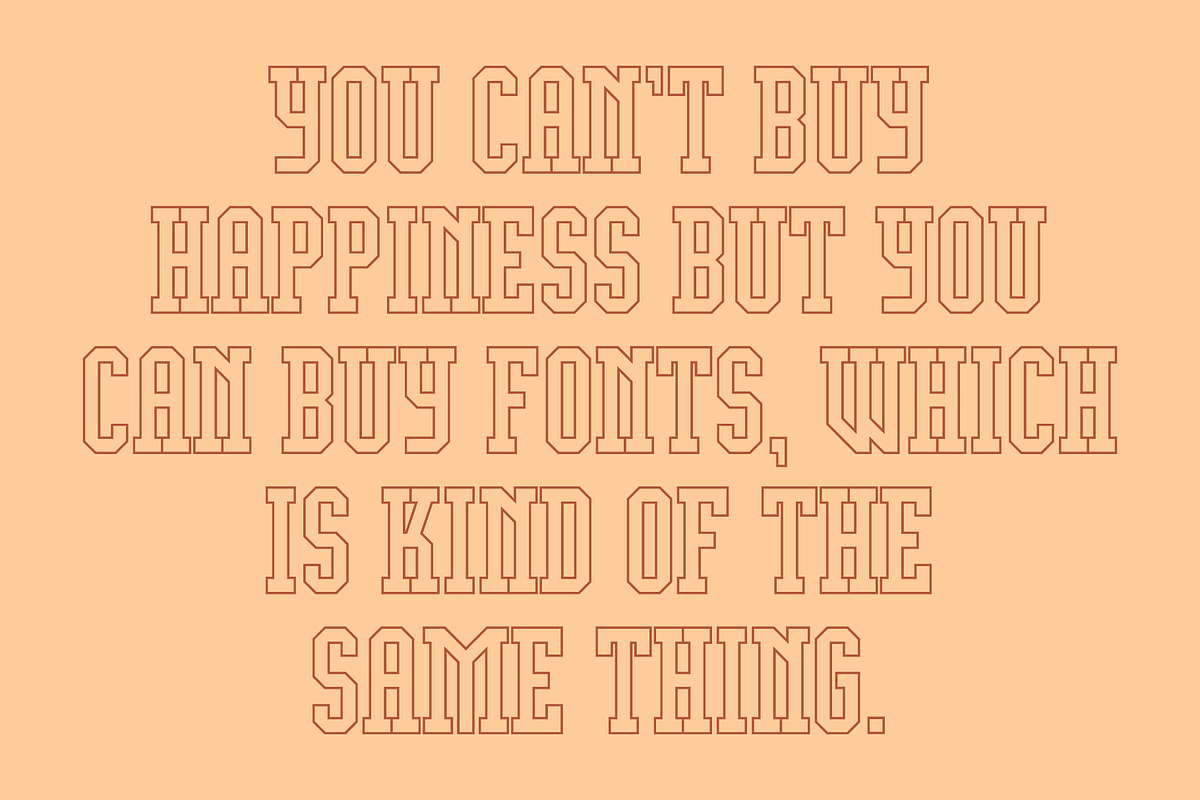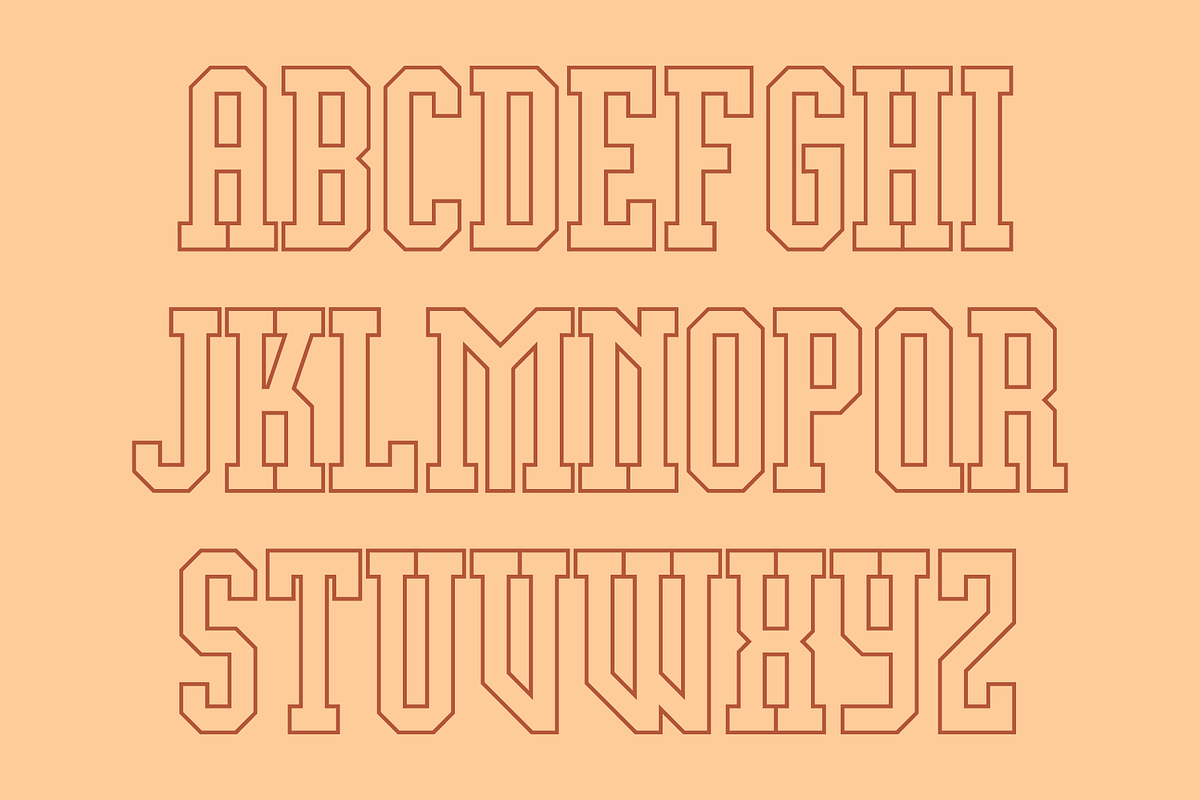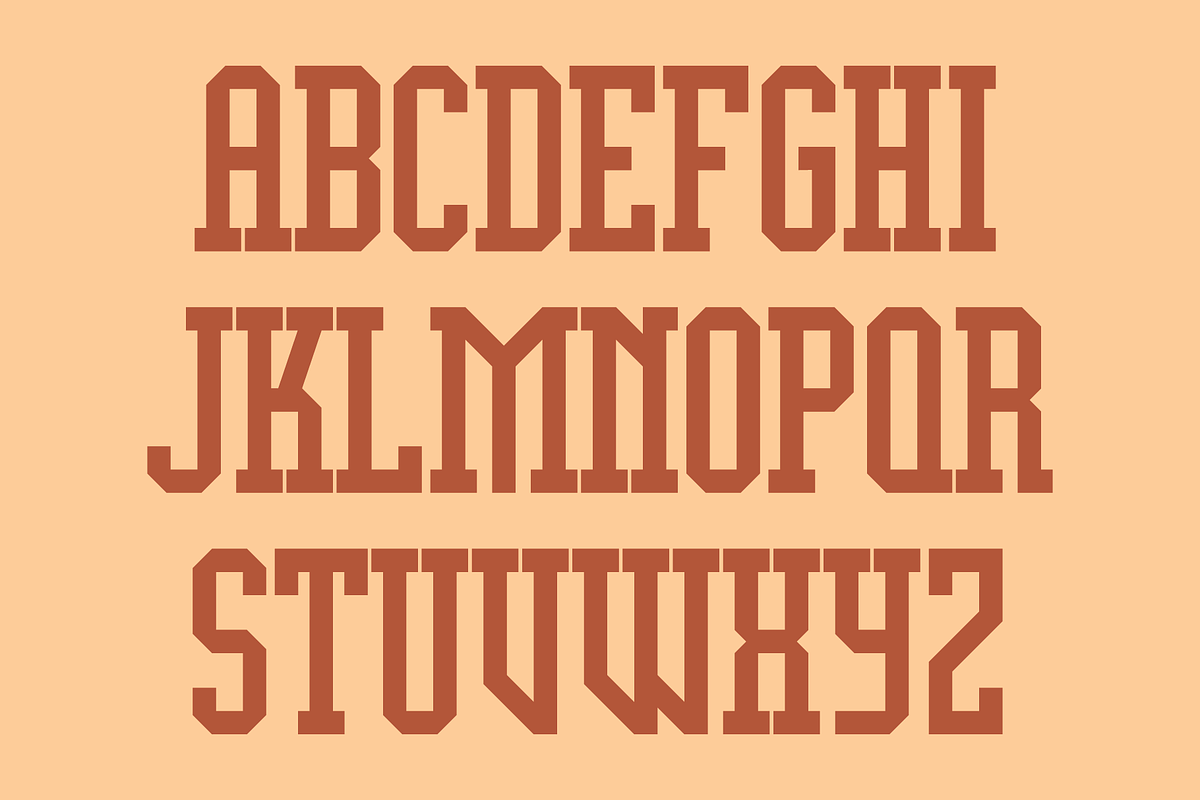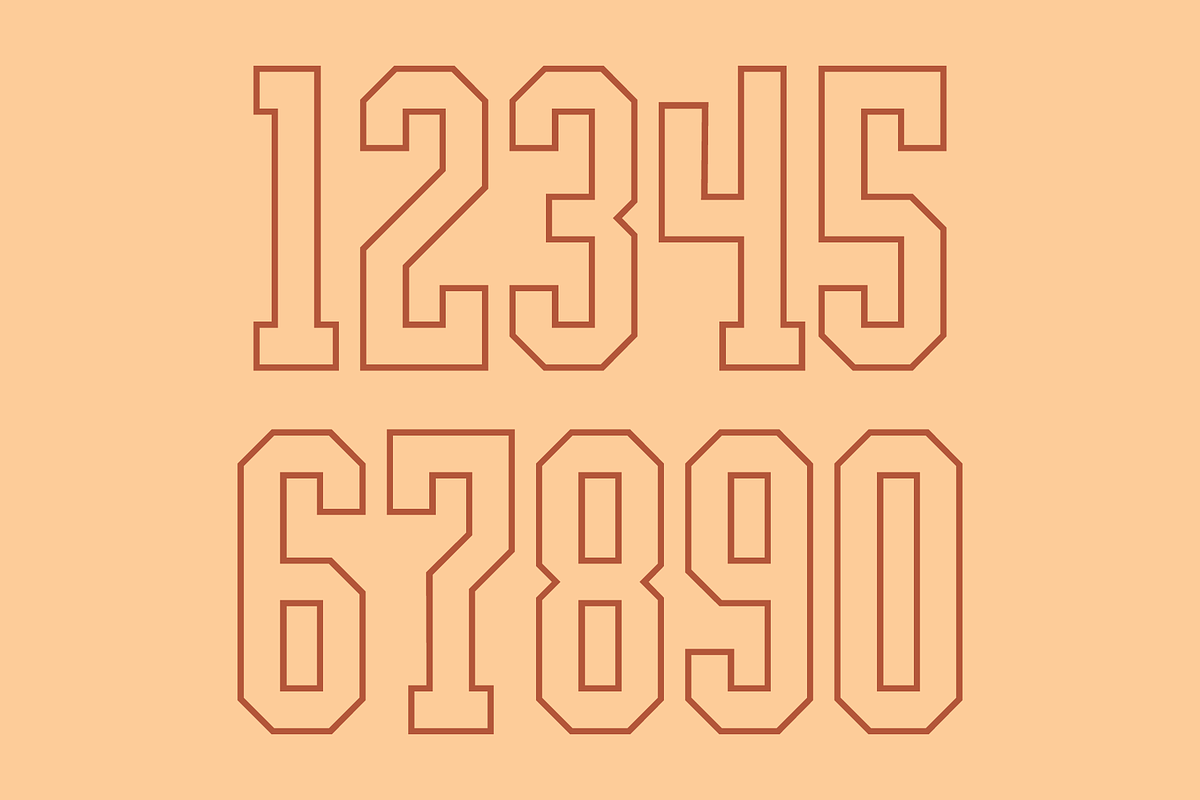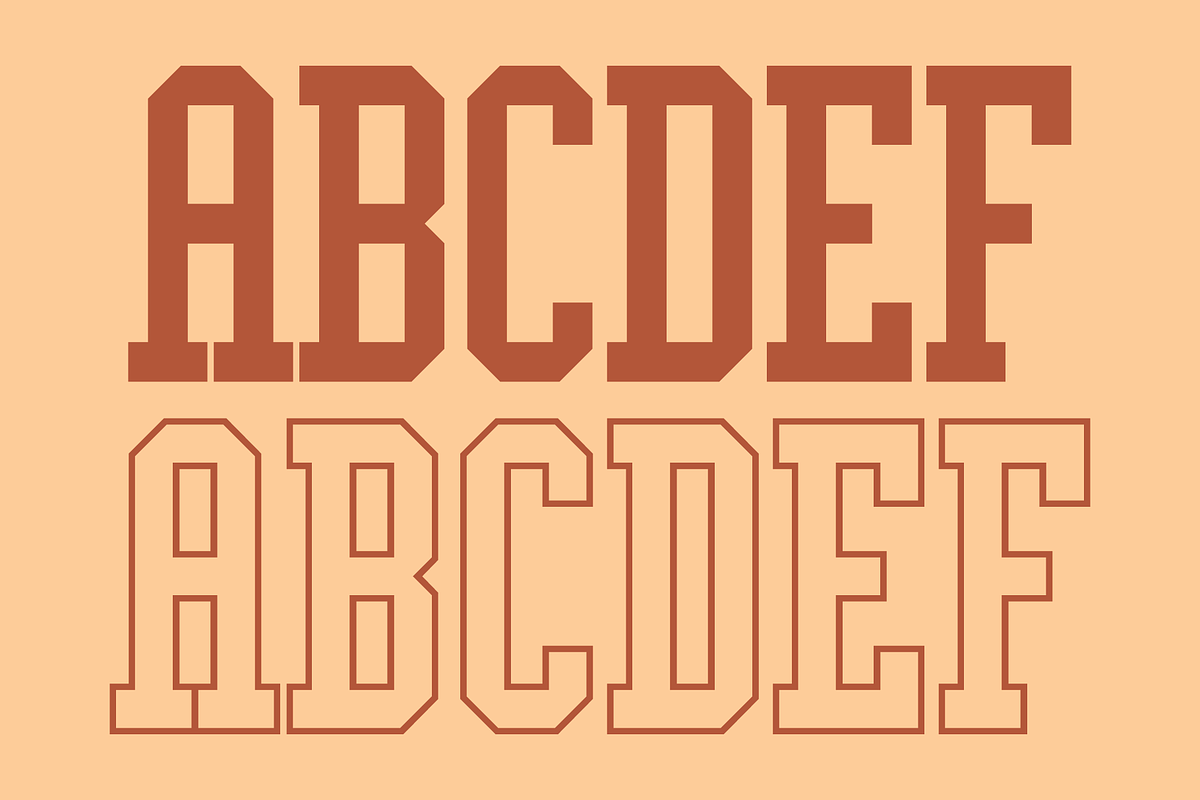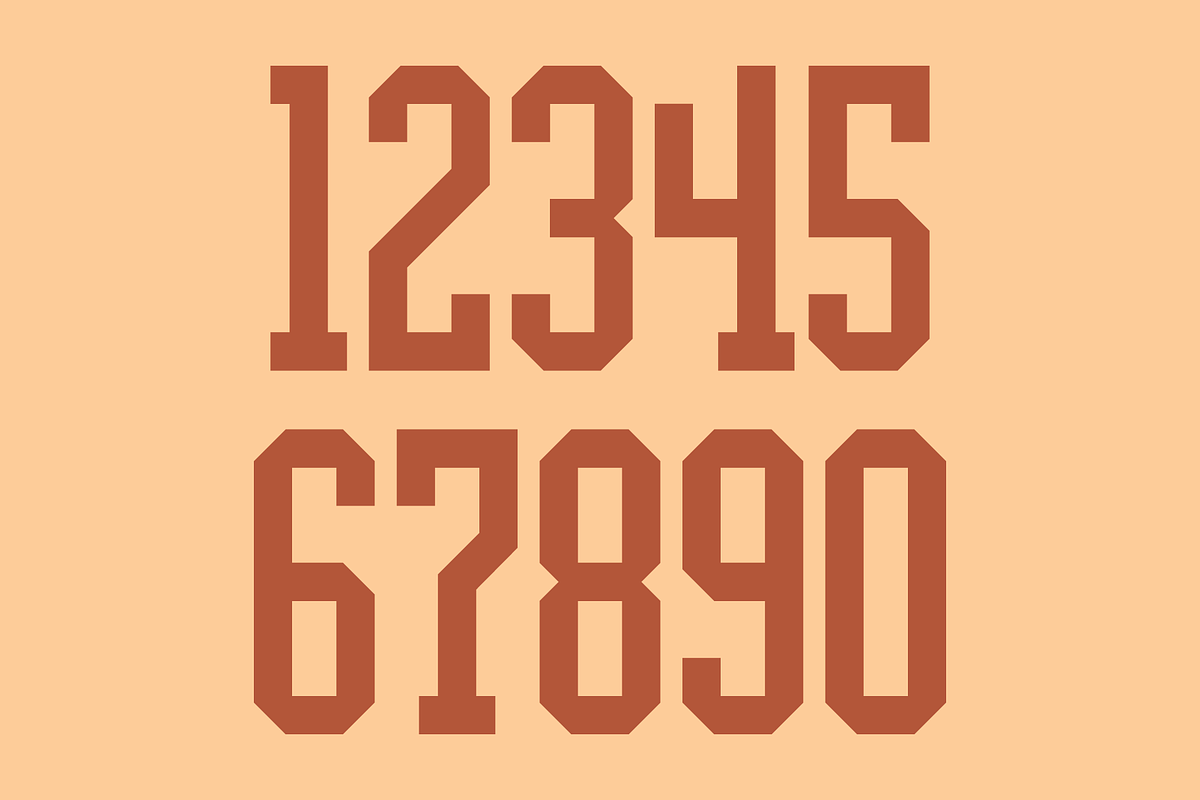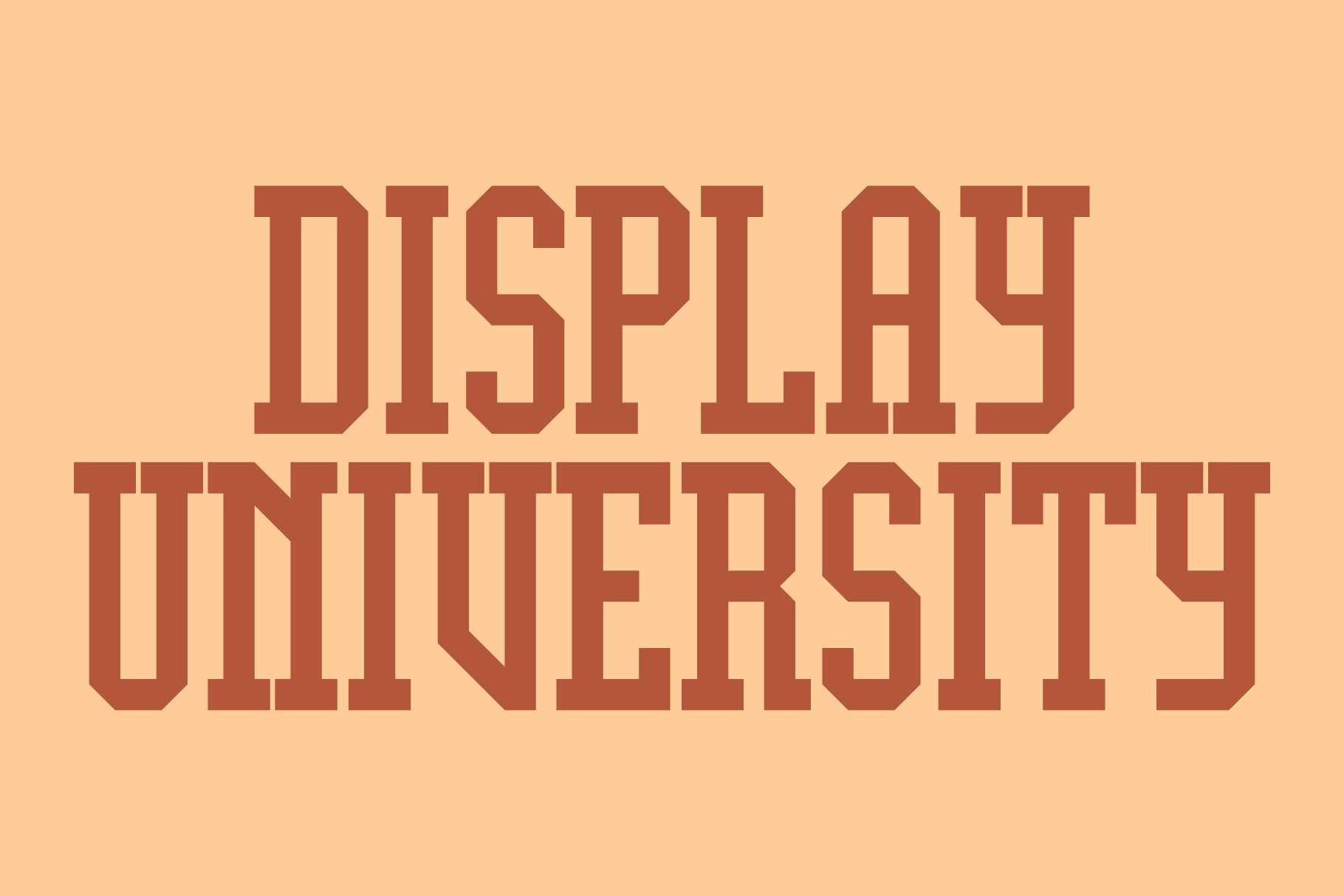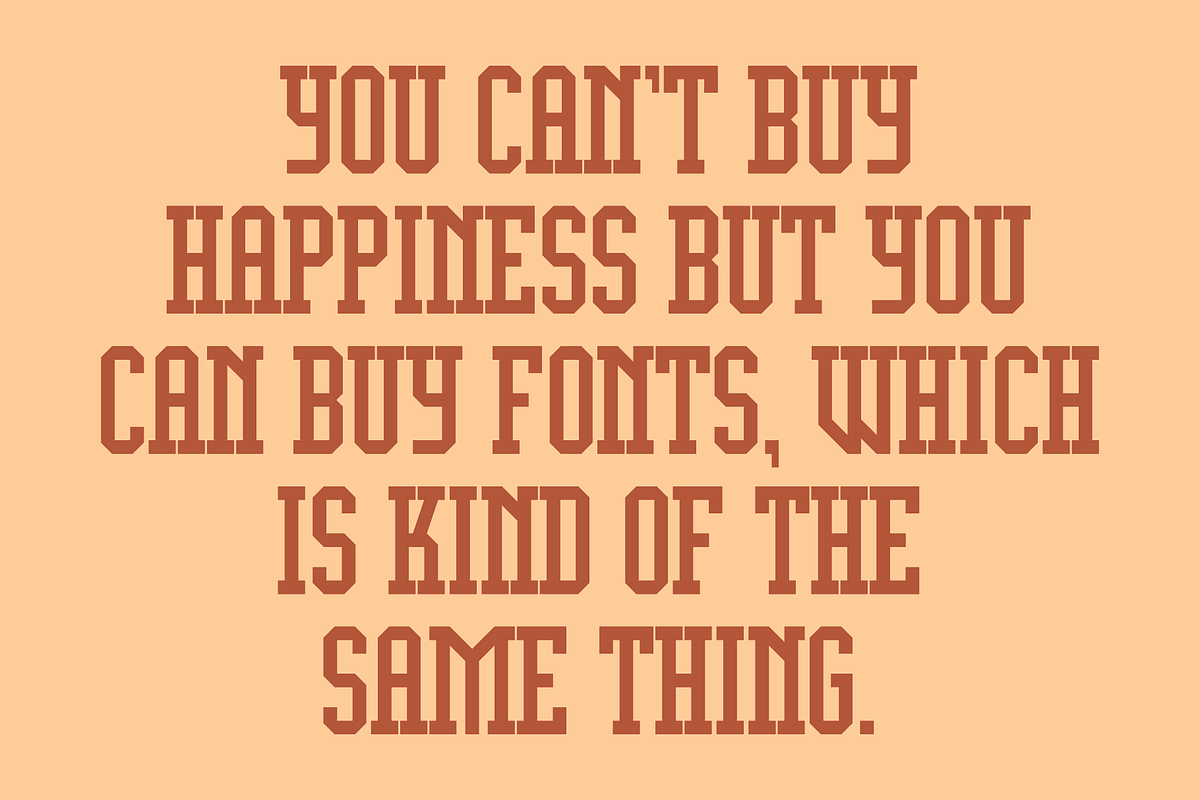
Display University Font
Display University has the same A to Z characters in solid form under the shift+character set keys and outline form under the character set keys. The numbers, dollar, pound and euro signs, and basic punctuation are in solid and outline characters also.